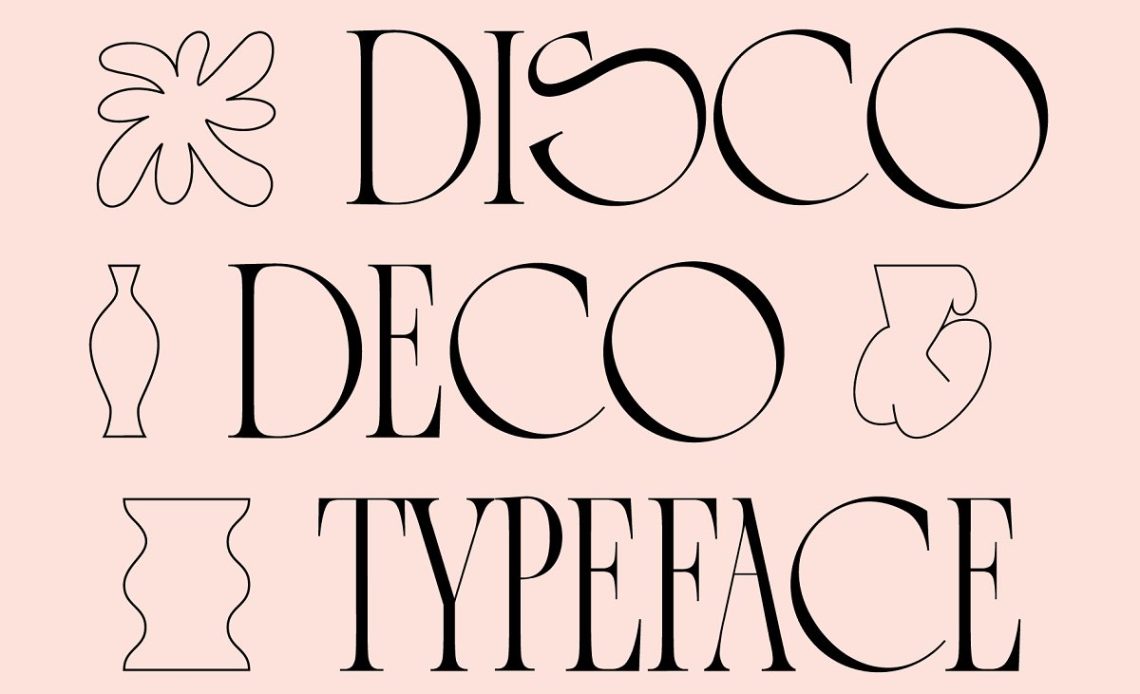
Introducing Disco Deco - Graphic Serif Typeface, the font that brings the fun factor to your designs! Created by New Tropical Design Studio, this font is all about embracing the joy of creativity.
With Disco Deco, you can add a playful touch to your typography with its collection of lowercase fun graphics. Whether you want to replace letters, combine them with your text, or create unique backgrounds, Disco Deco has got you covered. Simply open up the glyphs panel in your software and let your imagination run wild!
Inspired by the art deco movement, Disco Deco also incorporates elements from different eras, giving it a unique and eclectic vibe. Whether you're designing a funky poster or a cool logo, this font will help you achieve stunning results effortlessly.